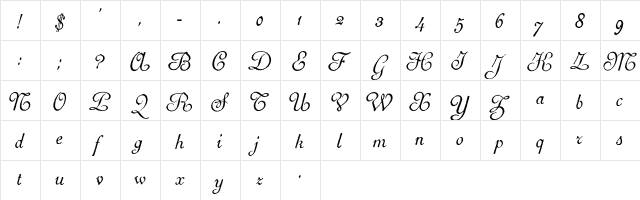
Archive French Script Regular
Design Context for Archive French Script Typeface
Archive French Script flows with the natural rhythm of handwritten lettering, making it ideal for designs that call for warmth and personal expression.
Font Pairing: Combine Archive French Script with a simple geometric sans for maximum contrast — the tension between flowing curves and clean structure is a classic typographic pairing.
Pro Tip: Use Archive French Script for short runs of text — names, titles, or taglines. Extended body copy in script faces tires the eye quickly.